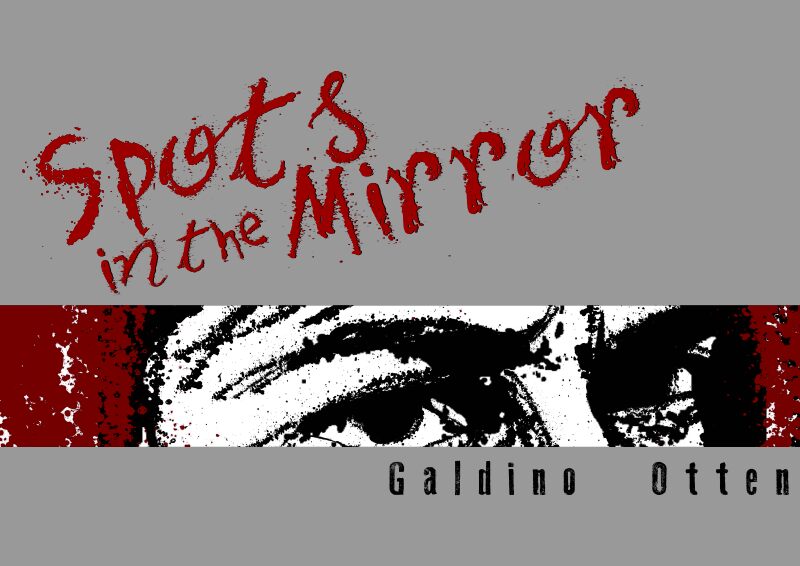
Spots in the Mirror by Galdino Otten is a free distressed script font with the look of hurried, ink-stained lettering. Its dry, broken strokes and scattered specks are deliberately unruly.
As a rough handmade title, it can set the scene for punk gig posters, horror artwork, and underground album packaging. The scraped finish also suits streetwear graphics and Halloween event material, especially when the surrounding imagery uses paint, photocopy noise, or grime. In those settings, the letters can become part of a splattered texture or painted sign instead of serving as neutral text.